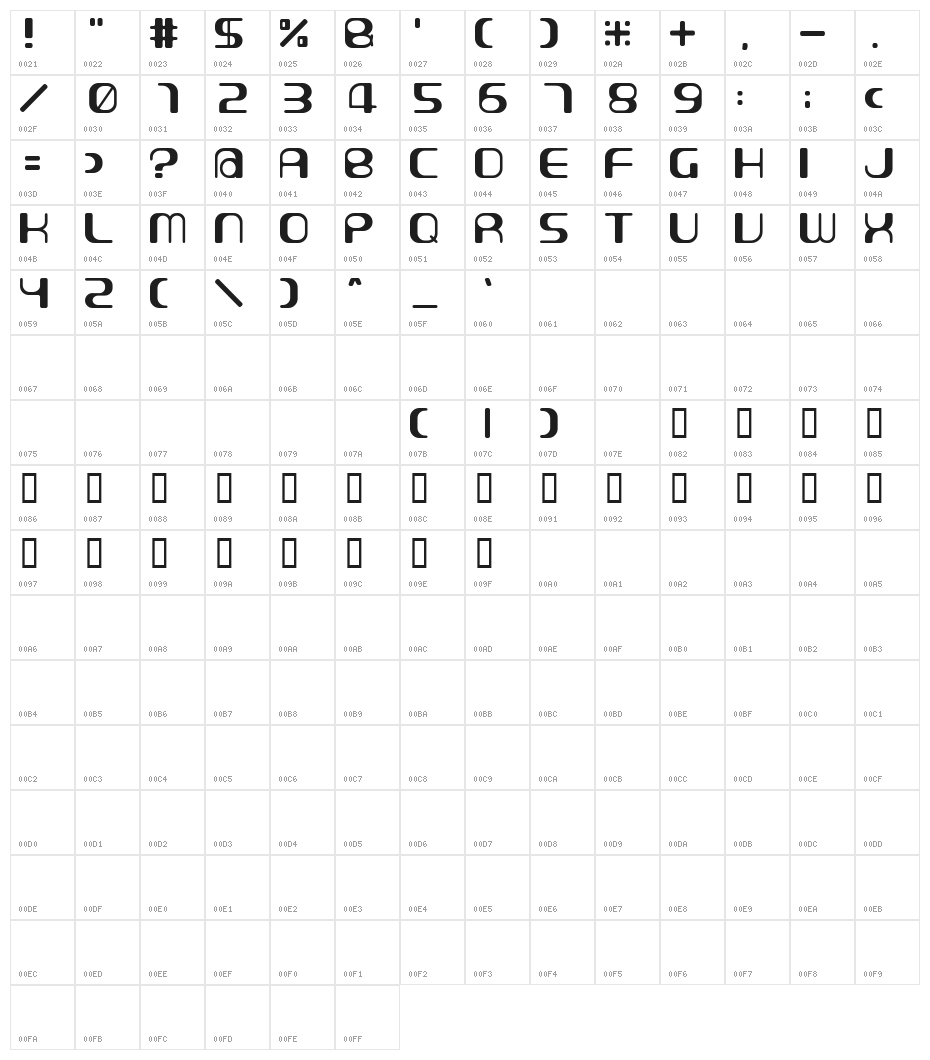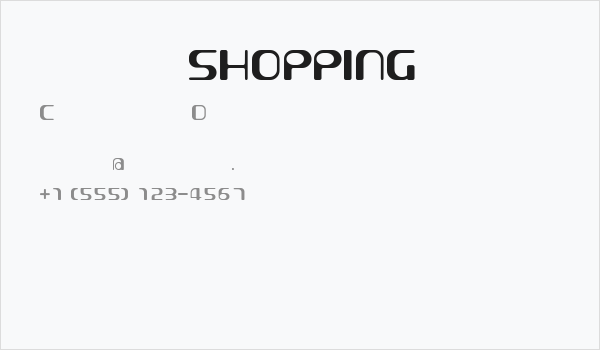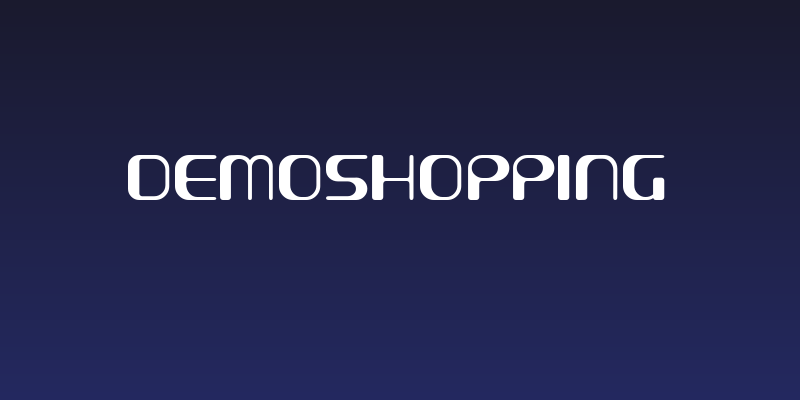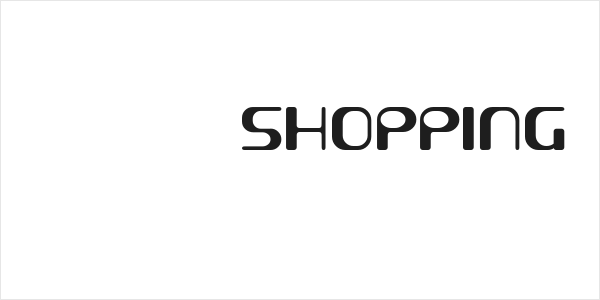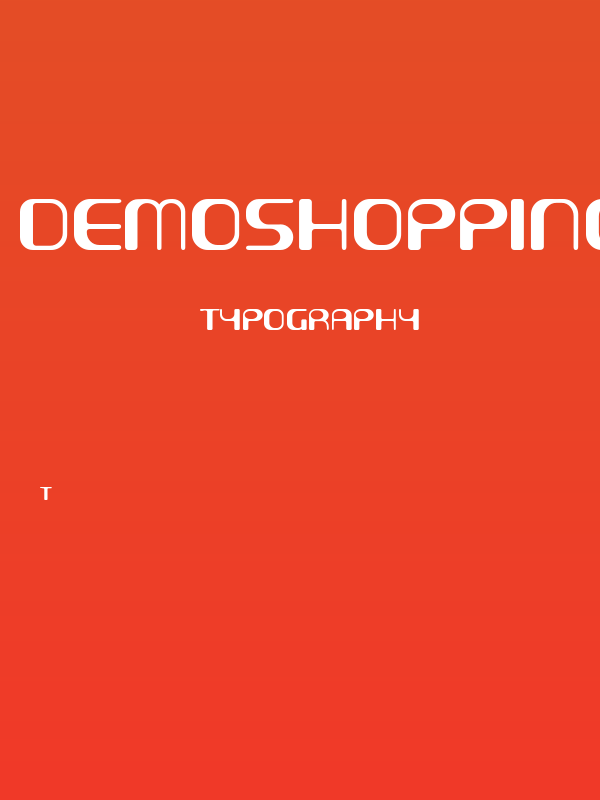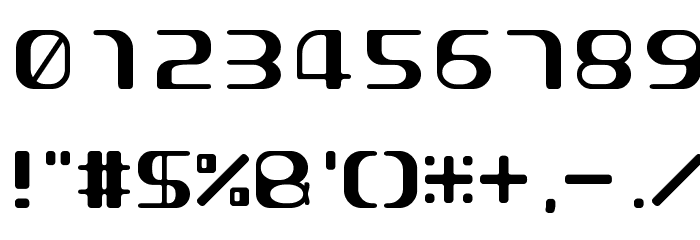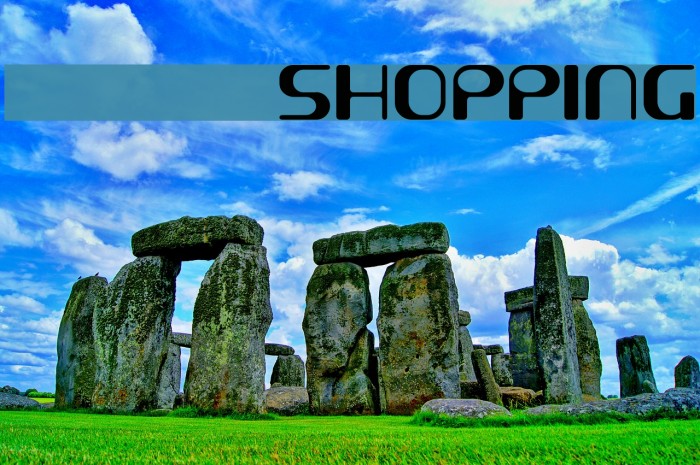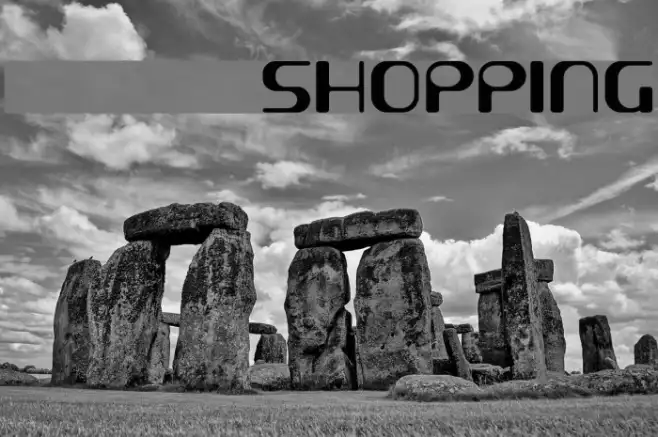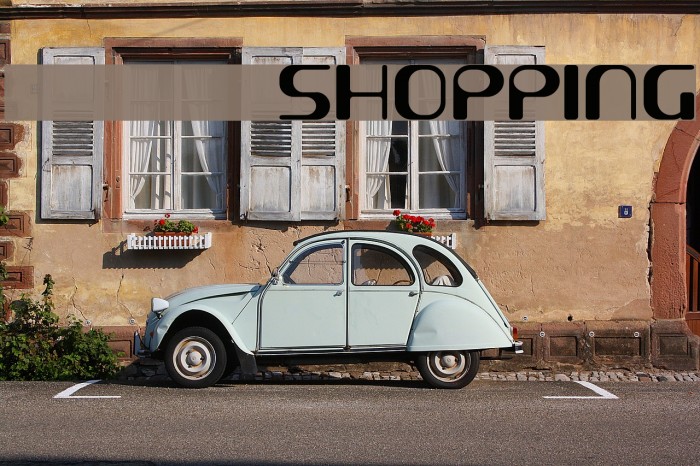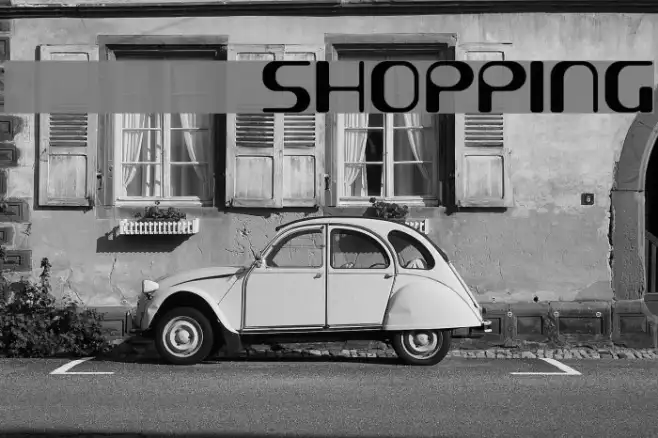
demoSHOPPING Font
demoSHOPPING Description
This font features a modern and futuristic design with rounded edges and a sleek appearance. The characters are uniform in width, giving it a monospaced feel, yet they maintain a unique style with subtle curves and angles. The uppercase letters are bold and prominent, while the lowercase letters follow the same design principles, ensuring consistency across the typeface. The numbers and special characters are crafted to match the overall aesthetic, making it suitable for digital and print media. The font's clean lines and geometric shapes make it ideal for contemporary design projects.
| Use Case | Headlines, Logos, Digital Interfaces |
| Proposed Projects | Ideal for tech branding, digital interfaces, modern advertising, and futuristic-themed projects. |